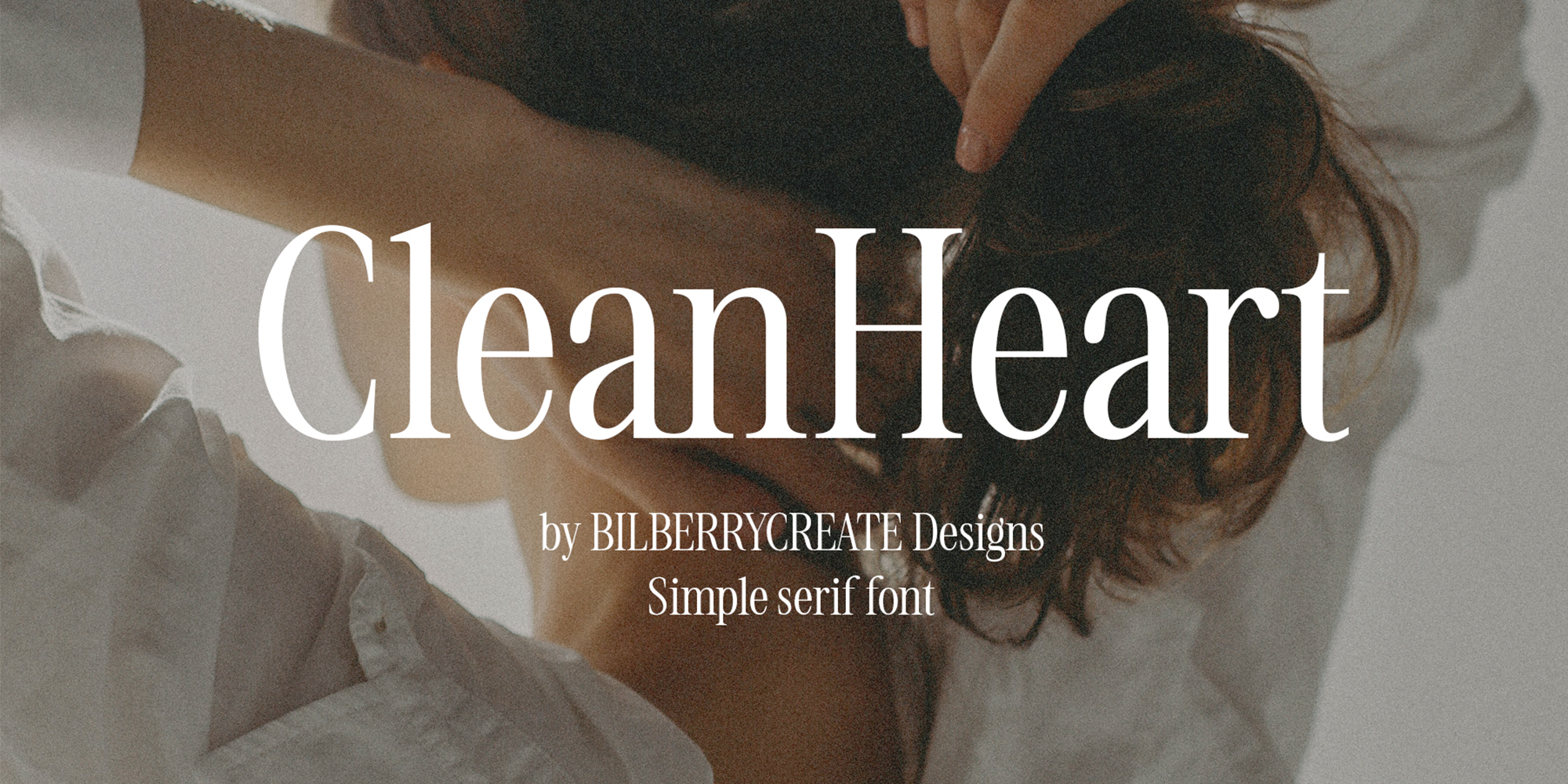
The Clean Heart Font is perfect for wellness center branding, pure water companies, organic health products, clean beauty brands, minimalist lifestyle communications, heart health organizations, purification services, and heartfelt design applications that require pure simplicity with emotional warmth and genuine authenticity.
What makes the Clean Heart Font Free Download so exciting is its exceptional ability to convey both physical cleanliness and emotional purity through typography that embodies the essence of a clean heart and pure intentions in both literal and metaphorical senses. This typeface features gentle letterforms with clean characteristics that suggest crystal-clear water, pure emotions, and the refreshing simplicity that comes from removing toxins and negativity from both body and spirit. Its pure aesthetic speaks to health-conscious audiences who value both physical wellness and emotional authenticity, making it perfect for wellness brands, clean product companies, and heart-centered organizations requiring typography that projects both purity authority and emotional genuineness.
The Clean Heart Font family encompasses gentle weight variations from Light to Bold, each maintaining the font's signature pure character and heartfelt sophistication. The collection includes Regular, Medium, and Bold styles with enhanced clean characteristics that reinforce the font's wellness appeal and emotional authority. This pure font system ensures wellness providers and clean product companies have access to typography that conveys genuine purity while creating immediate connection to concepts of heart health, emotional cleansing, and pure lifestyle excellence.
Perfect for wellness centers, clean beauty brands, heart health organizations, and creative professionals working on projects that celebrate physical purity and emotional authenticity with heartfelt simplicity. The font's clean appeal makes it invaluable for wellness marketers, health communicators, and pure lifestyle designers developing communications that must purify messaging while touching hearts. Download Clean Heart Font Free Download today and purify your wellness projects with this exceptional typeface that flows with clean simplicity while delivering heartfelt authenticity and pure sophistication for wellness communications.